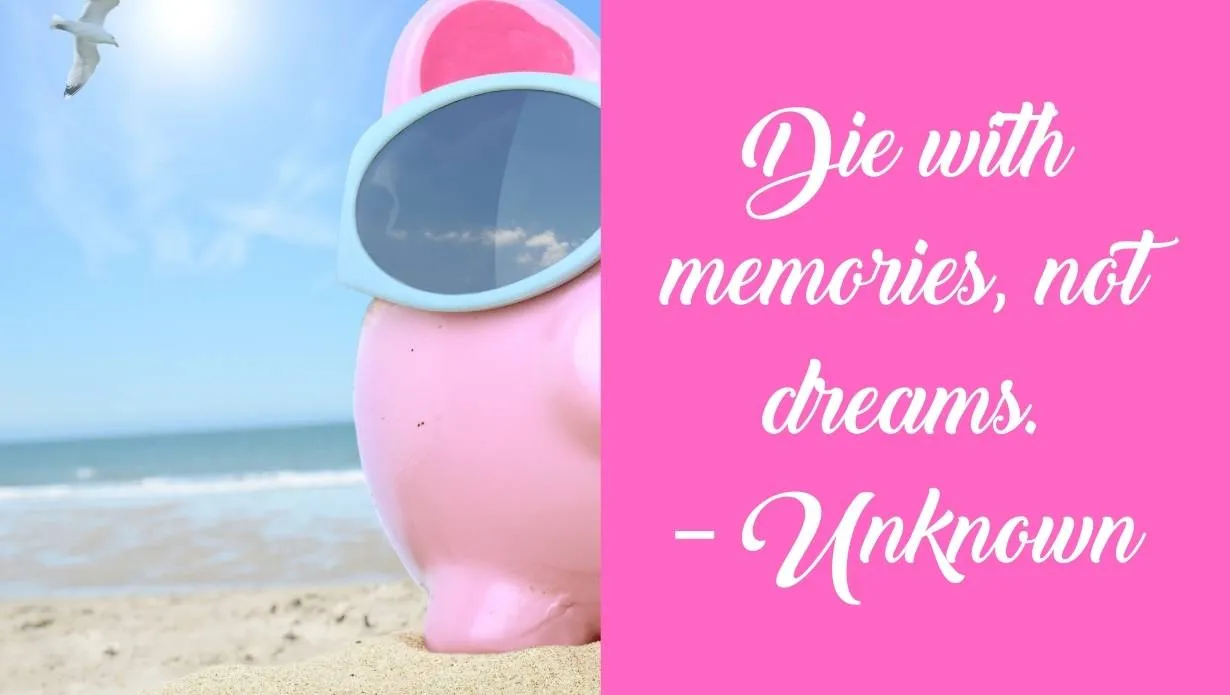
Back To Black Font was developed by Misti Font. This tremendous typeface belongs to the Calligraphy font family. This awesome font has come in a regular style along with 96 characters. And supports many international languages.
Back To Black Font